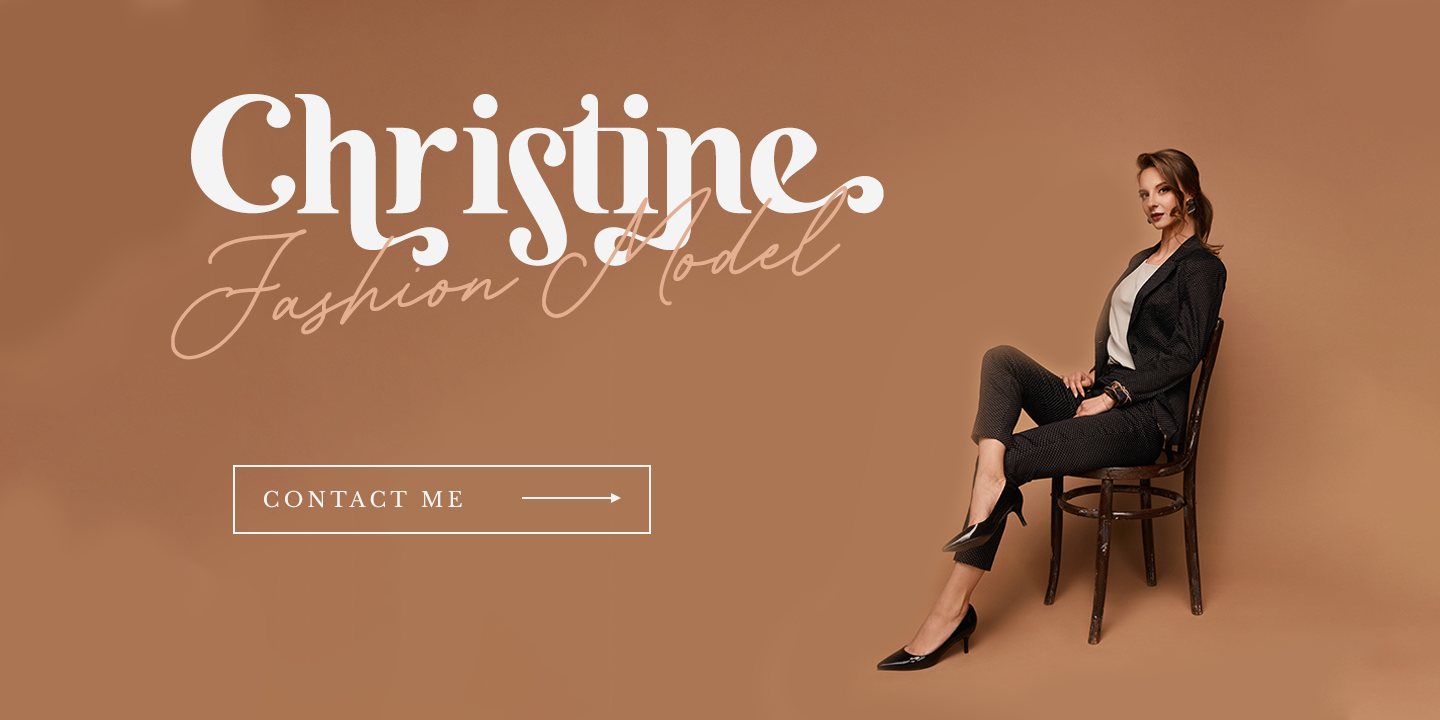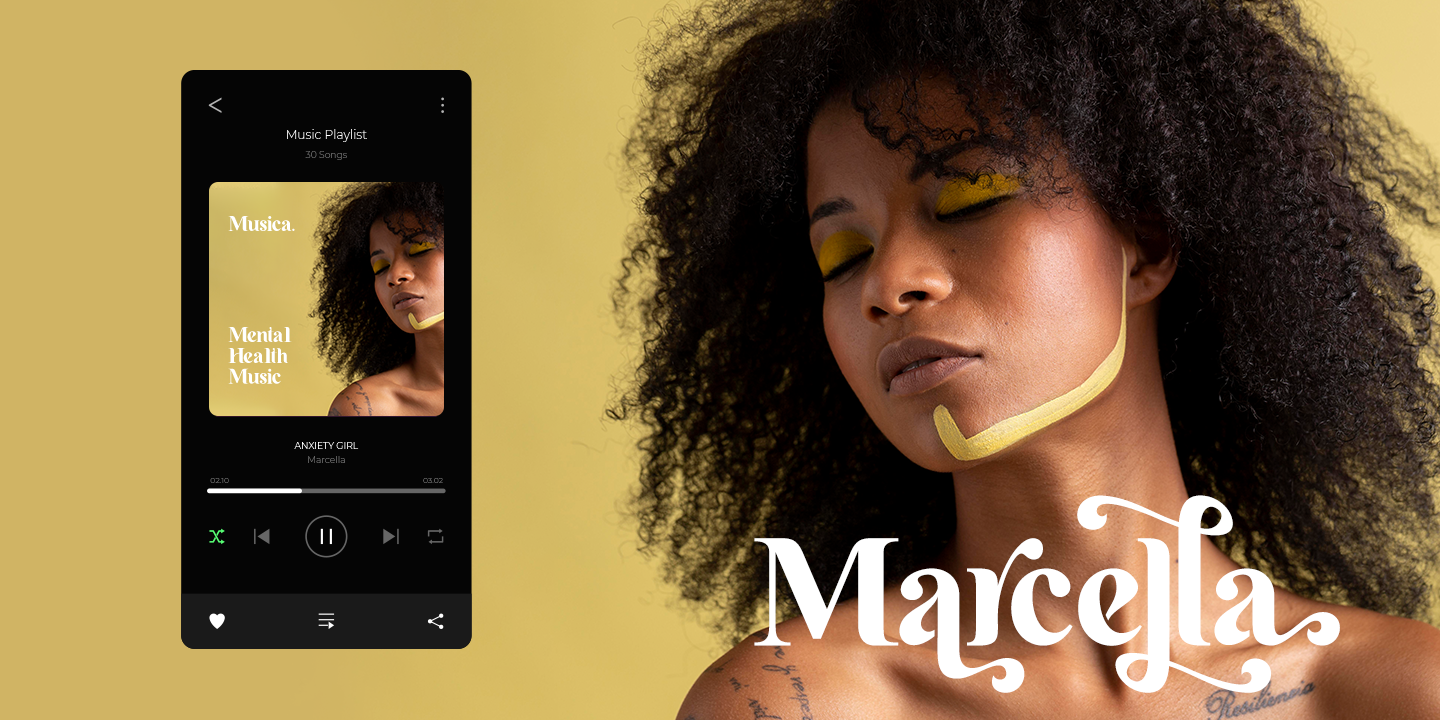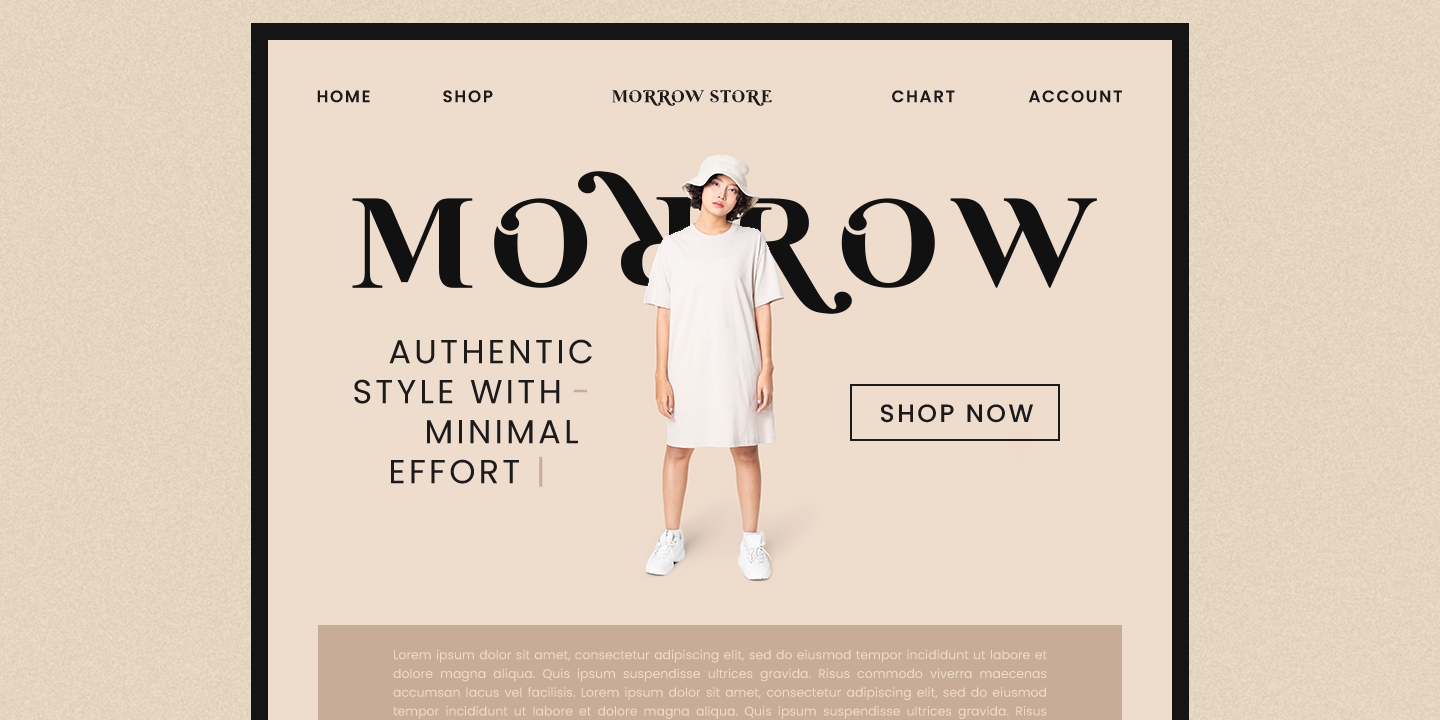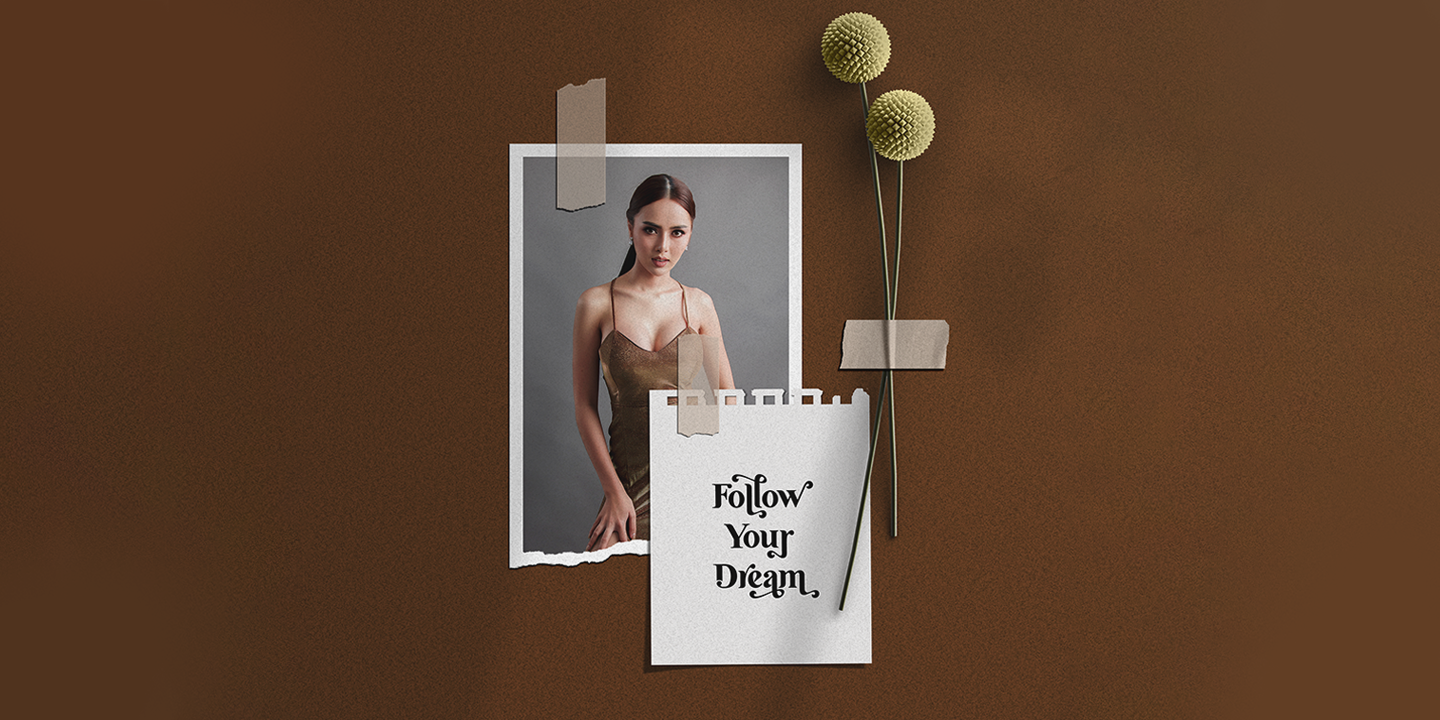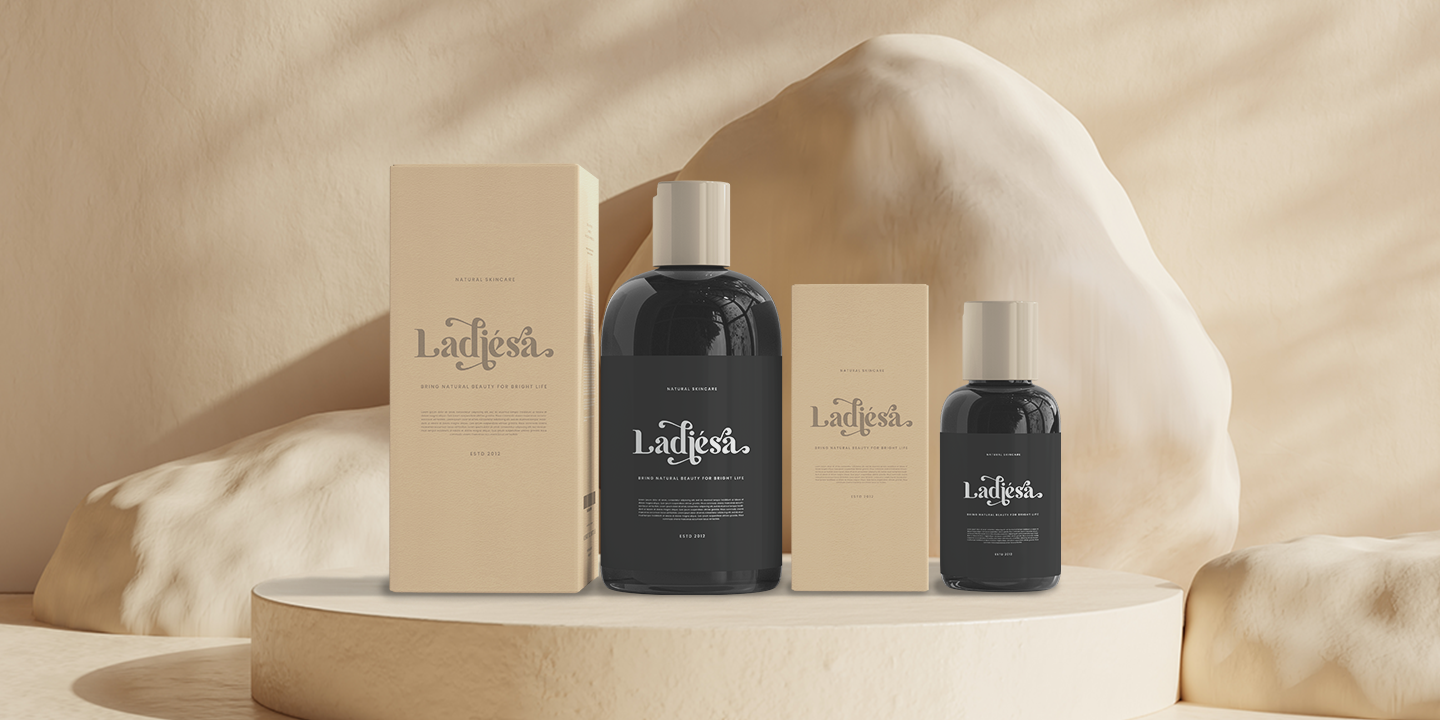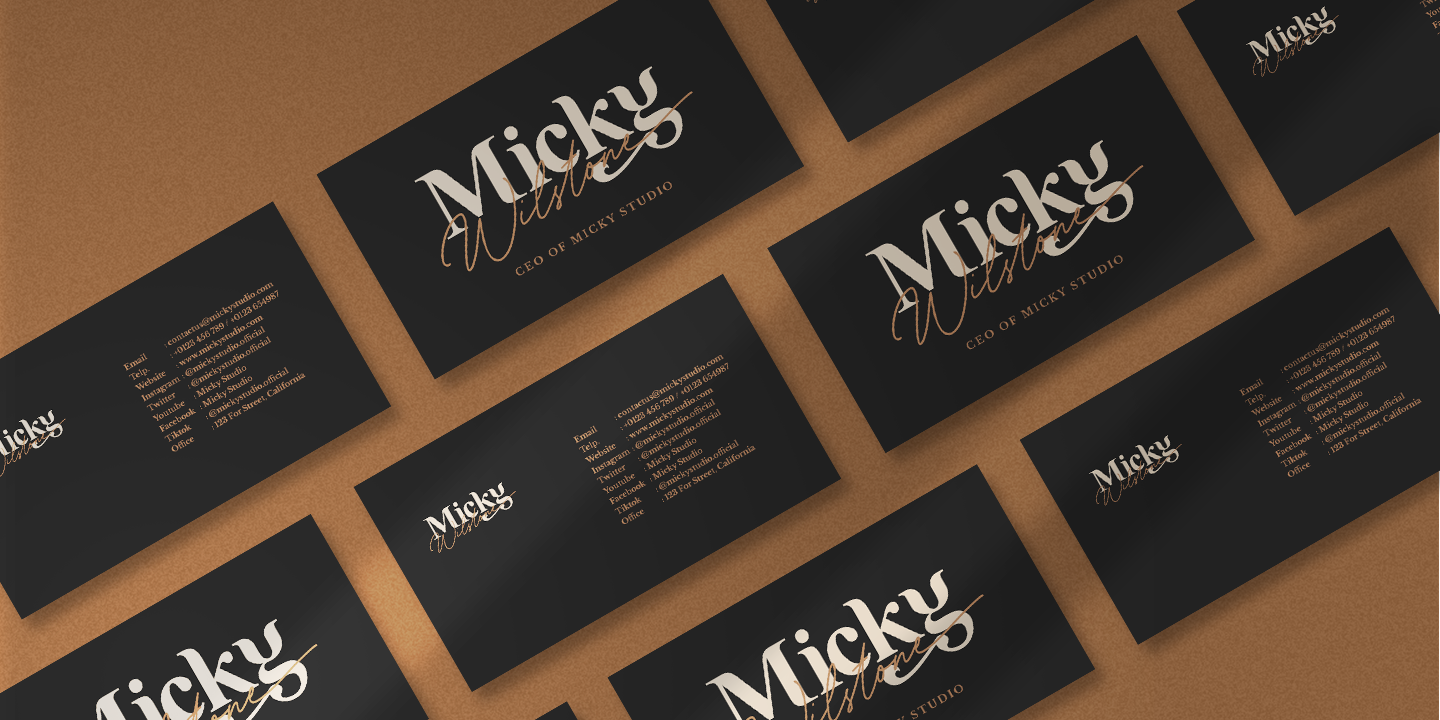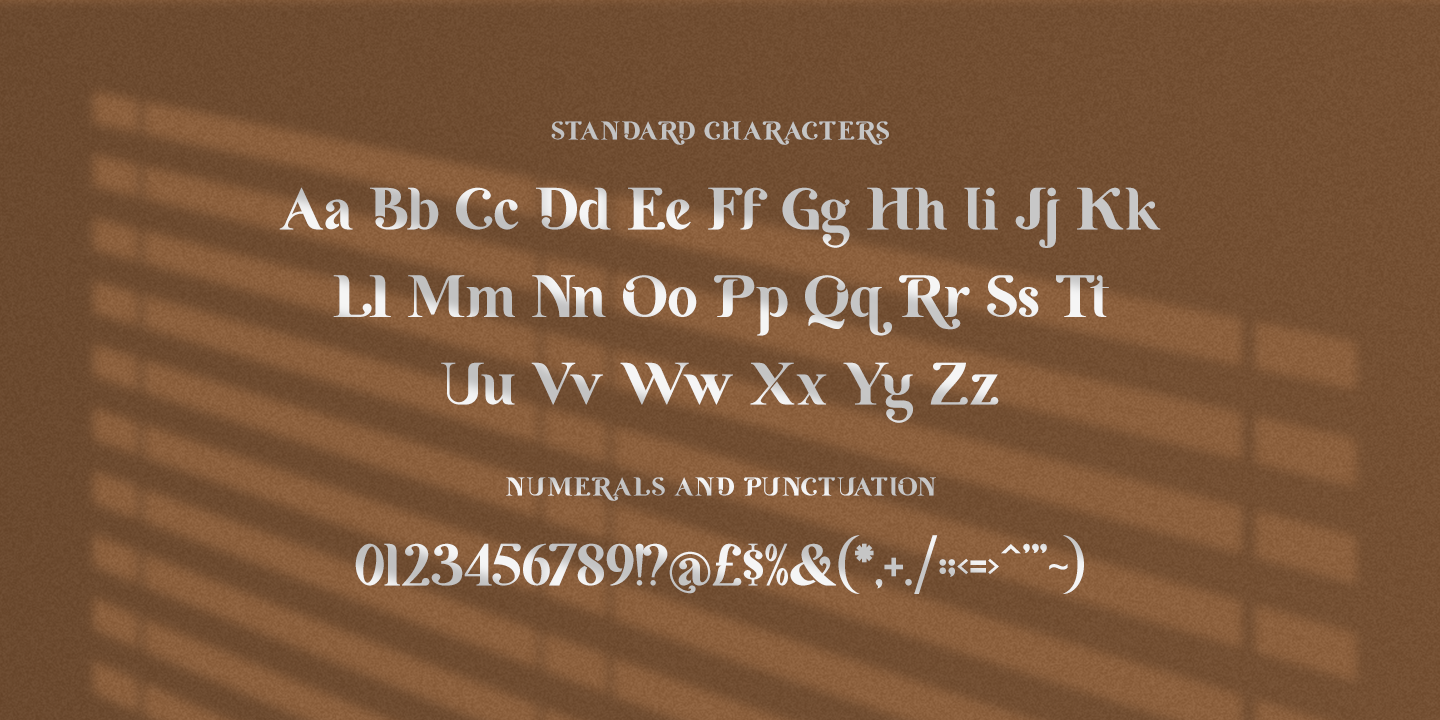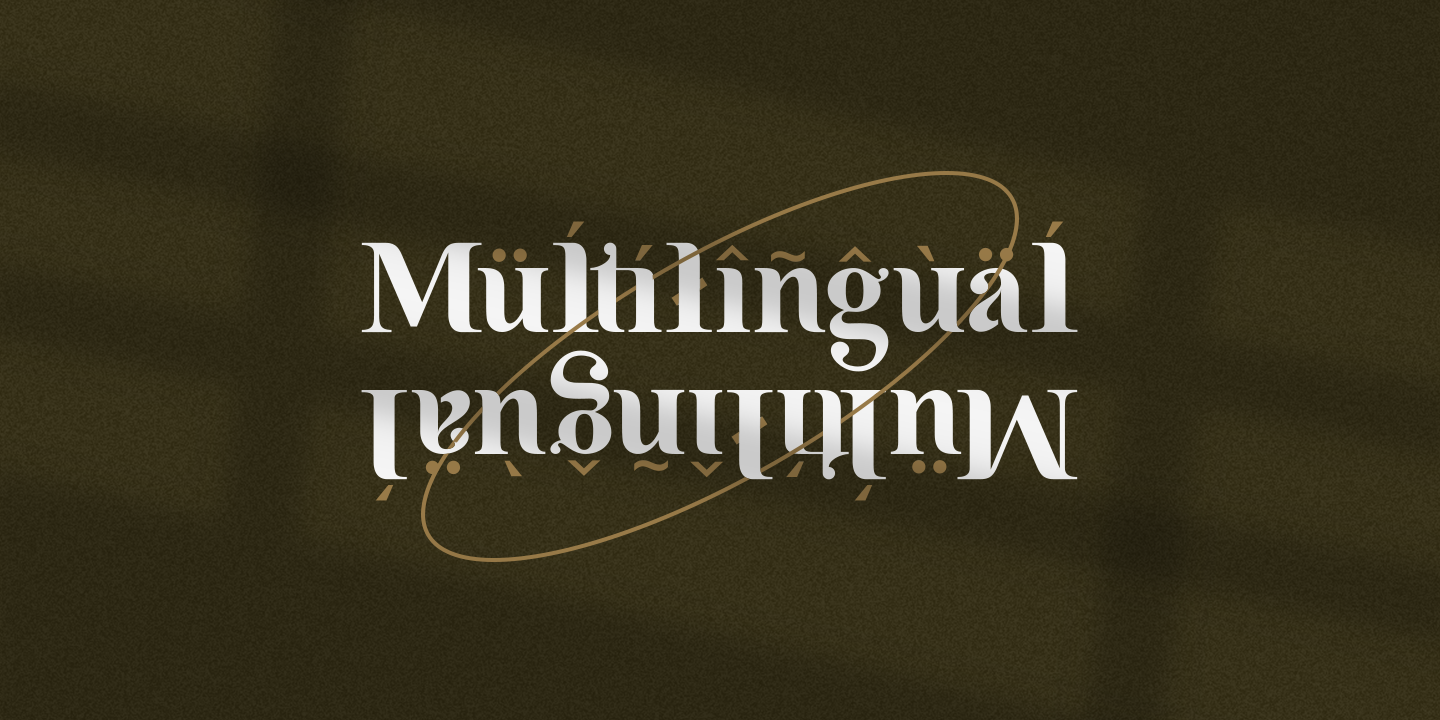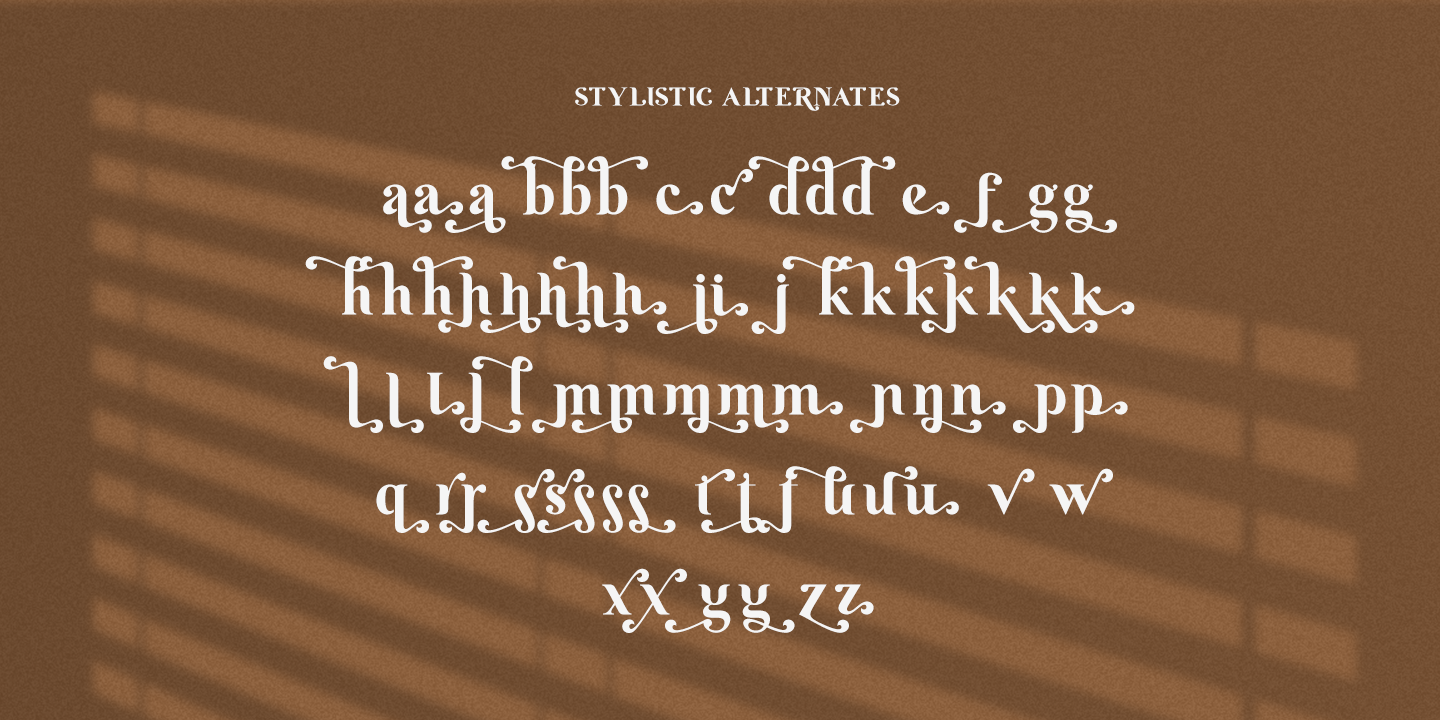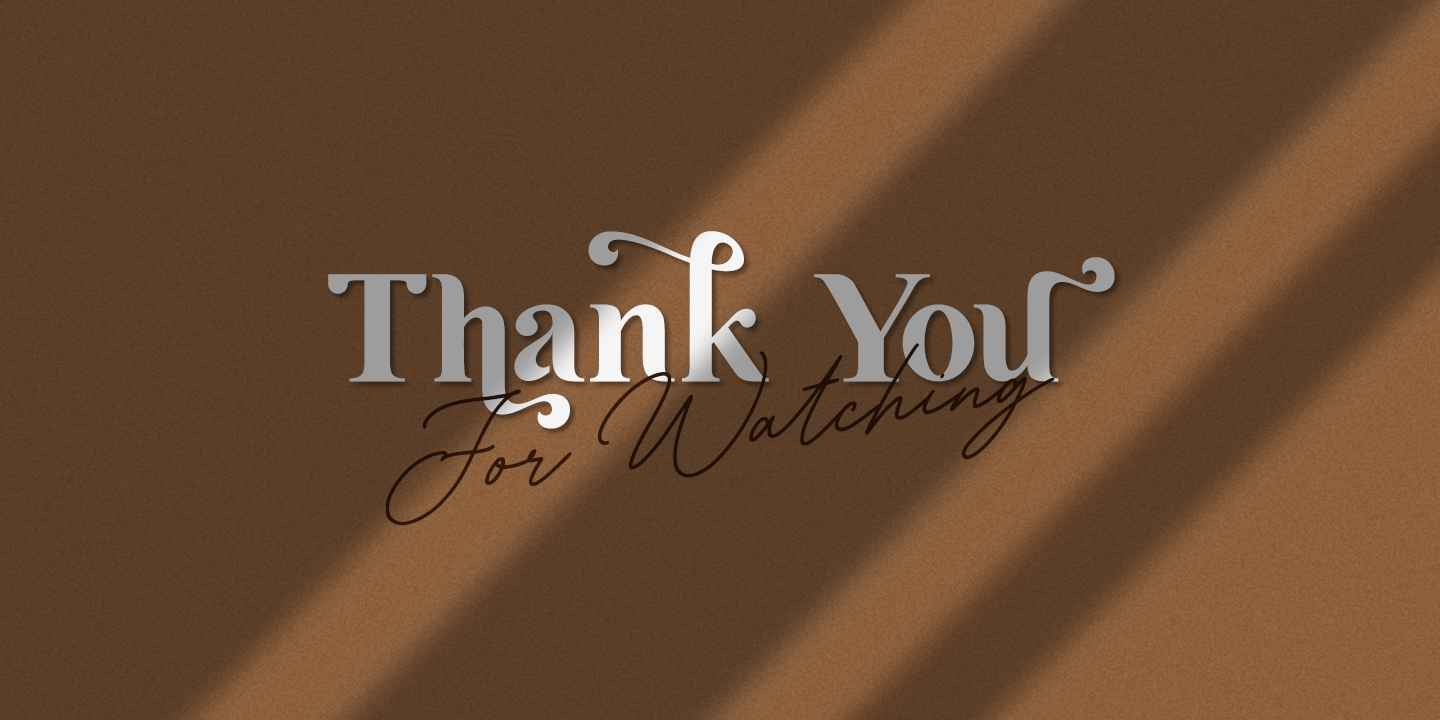
Hugio is a simple and casual serif font with an undeniably clean feel. With its neat and beautiful arrangement of letters, this typeface will look outstanding in both formal and non-formal designs.